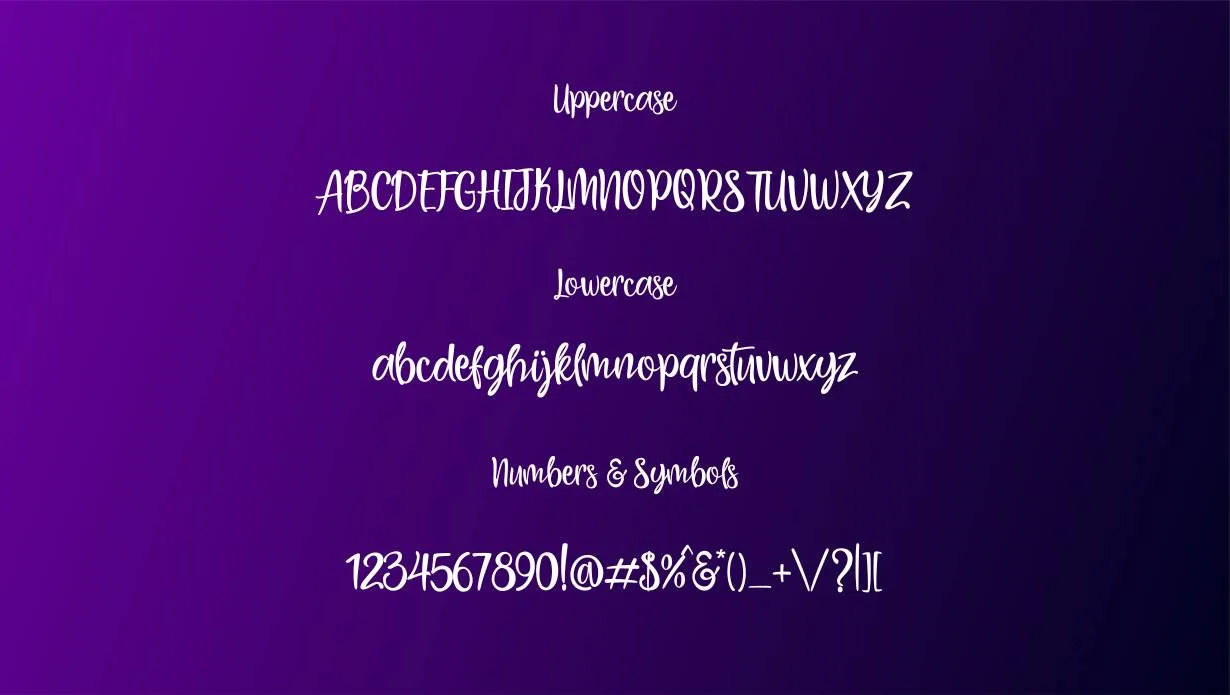
Desire Script Font is a graceful and flowing script typeface, often used in elegant branding, wedding invitations, and romantic design projects.
Desire Script Font Family